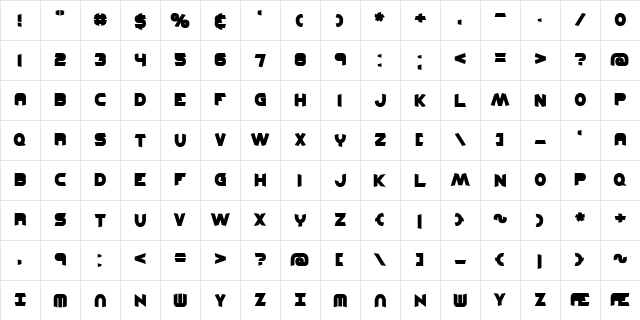
Kickflip (BRK) Regular Font Preview
Kickflip (BRK) Regular
Kickflip (BRK) Regular Font Details
Design Context for Kickflip (BRK) Typeface
Kickflip (BRK) is a composed and adaptable typeface that performs quietly and consistently across a wide range of design contexts.